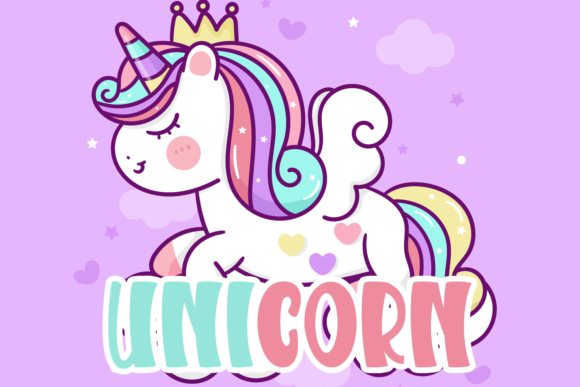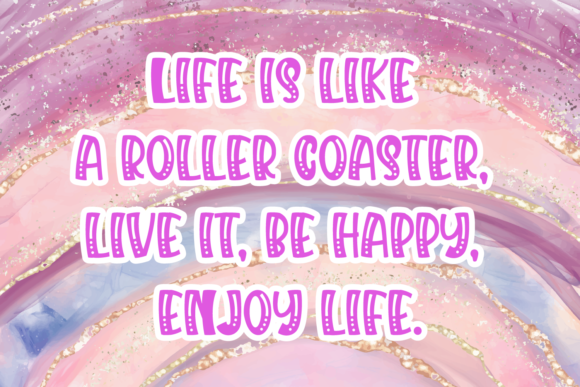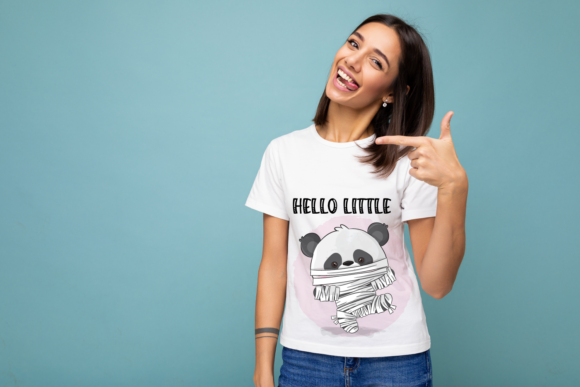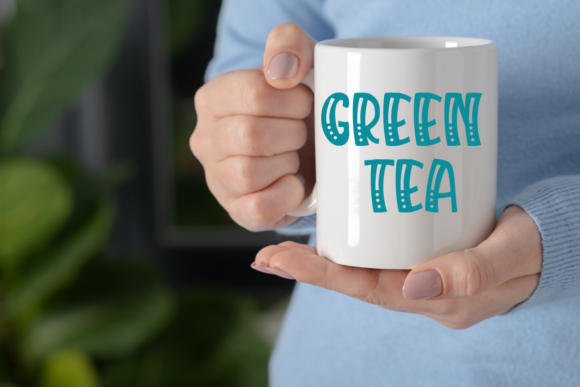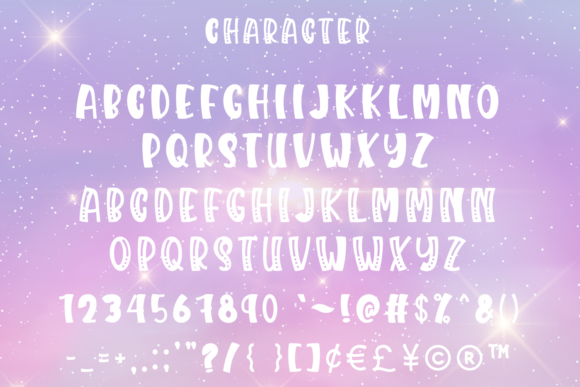
Introduction to Magical Twins Font
Magical Twins is a cute and bubbly display font.
It embodies playfulness and authenticity and is the perfect choice for any children activity or school project .
Key Features of Magical Twins Font
Why Choose Magical Twins Font?
Magical Twins Font offers exceptional quality and versatility, making it a valuable addition to your design toolkit. Whether you’re creating for personal projects or commercial use, Magical Twins Font delivers professional results.